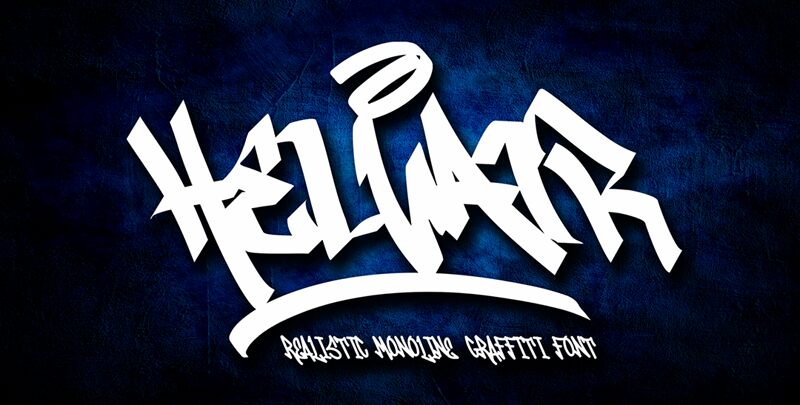
Helvair Graffiti font is a condensed graffiti font style developed by Cikareotype Studio. It is complex, dynamic, and inherently connected with the streets; the place where ideas run free and borders are non-existent. Urban at heart, all-caps characters visualize designs that stand out with uniqueness and authenticity at every corners.
Without hesitation put this free graffiti font to good use in headlines, posters, flyers, packaging boxes or bags, book covers, t-shirt designs, signages etc… Take your brand identity designs to whole new level with it as well!